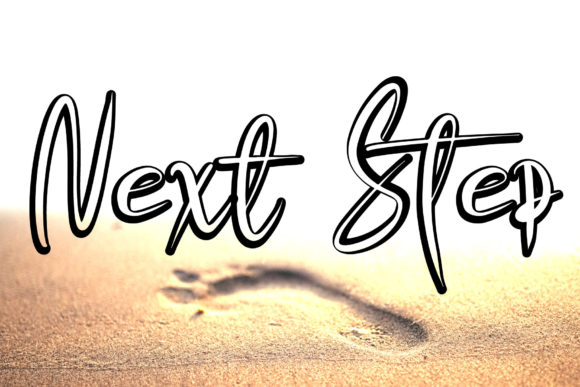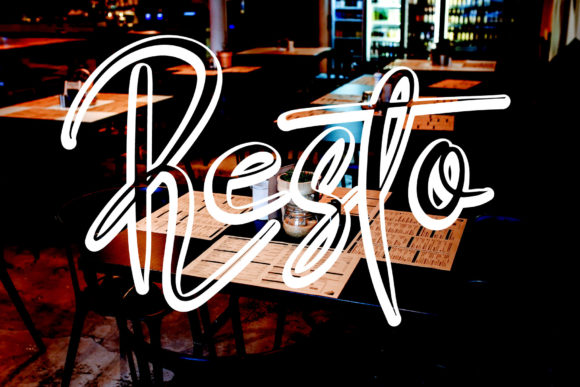
Fly over Font
db-ku.com - Script & Handwritten -- Fly Over is a romantic and gorgeous calligraphy typeface with characters that dance along the baseline. It will add a luxury spark to any design project that you wish to create!